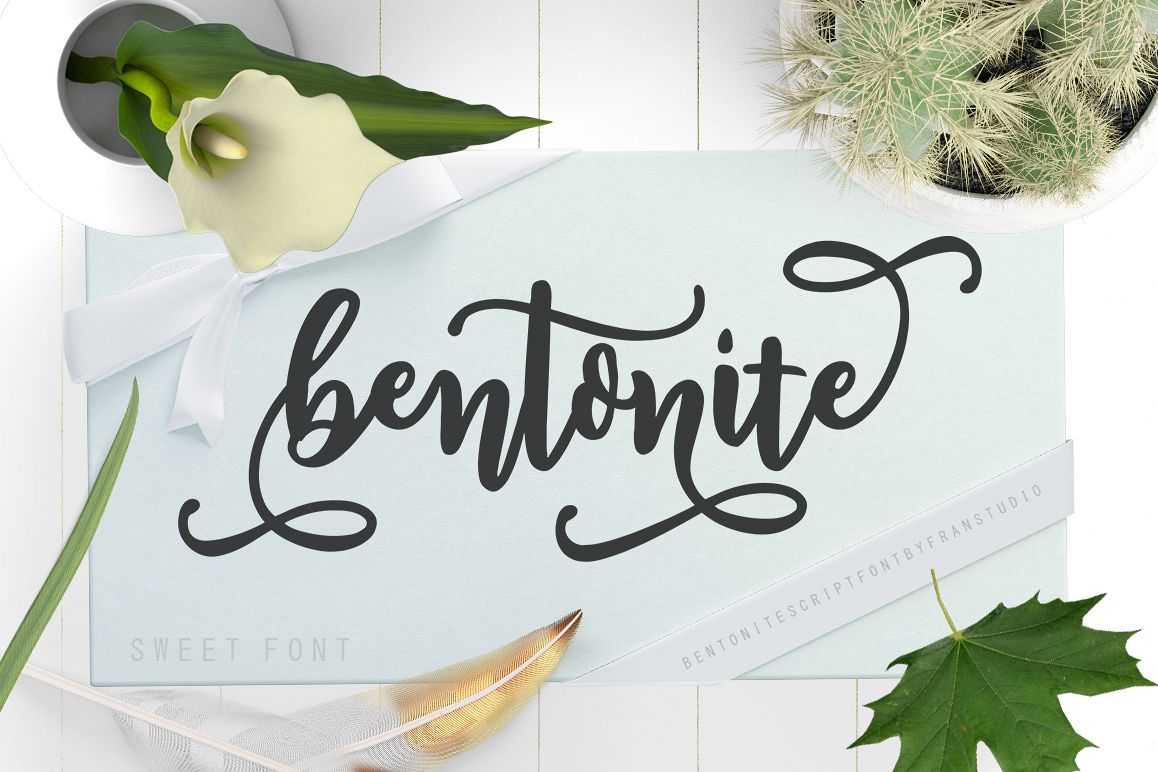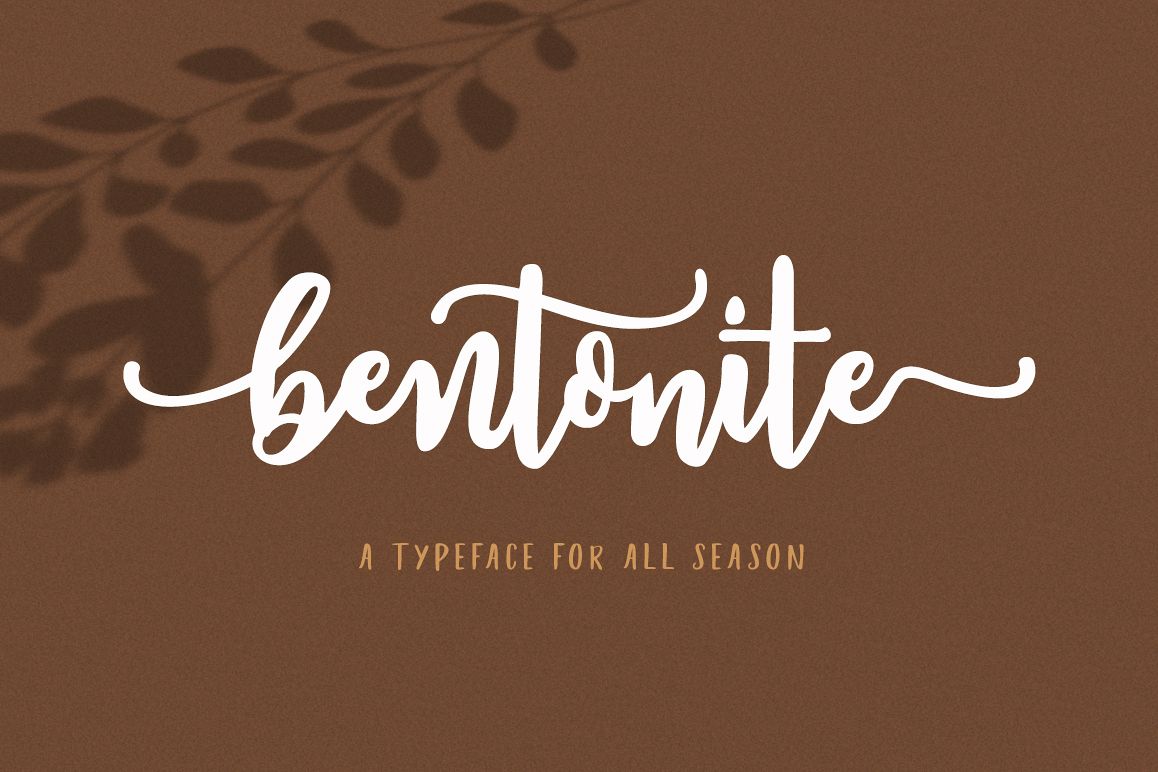
Bentonite Script
Bentonite Script is a hand-brushed modern calligraphy script font, created with both pen & brush. dancing baseline with separate swashes that can be applied to the beginning and ends of all lowercase. Bentonite Script includes several ligatures, alternates and international support for most western languages.